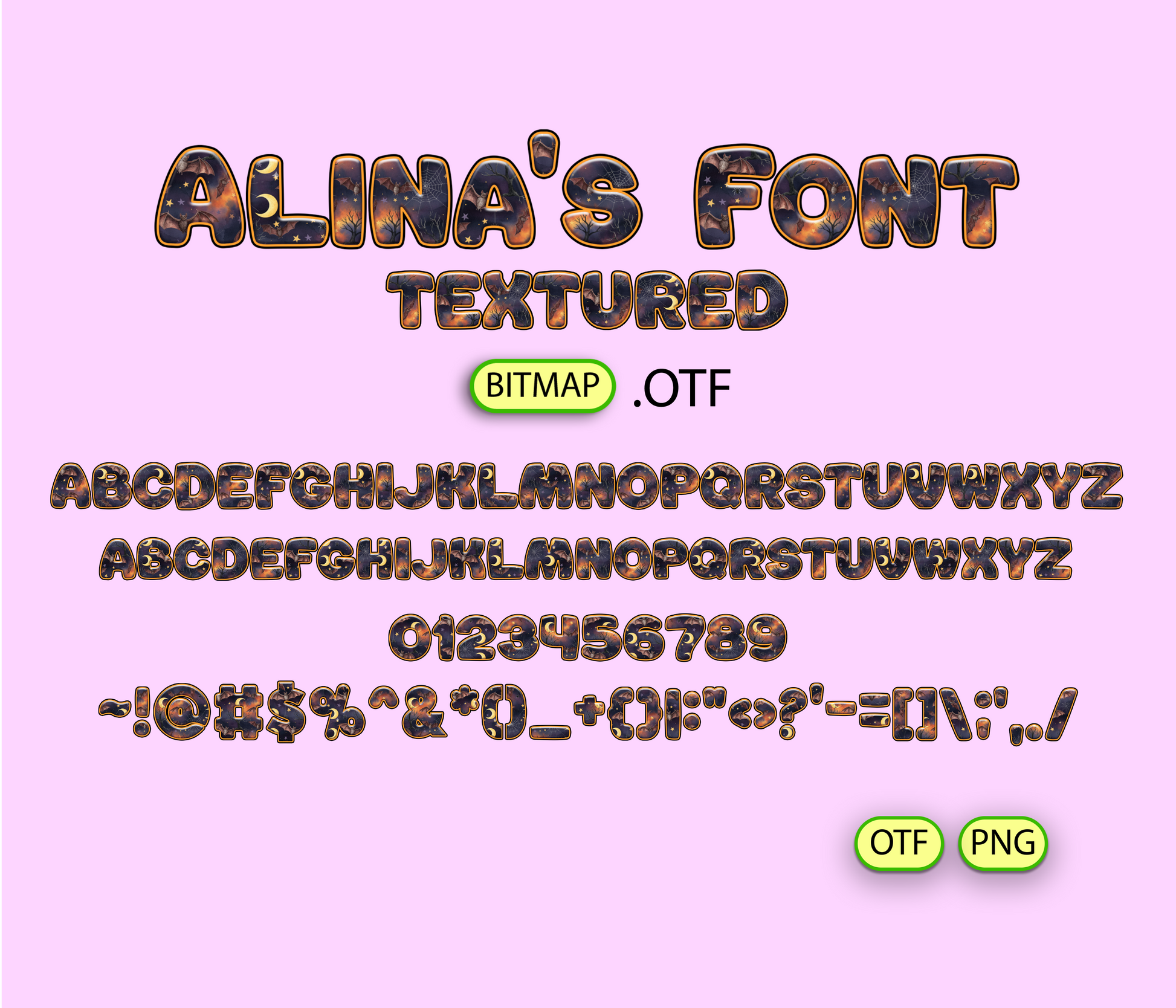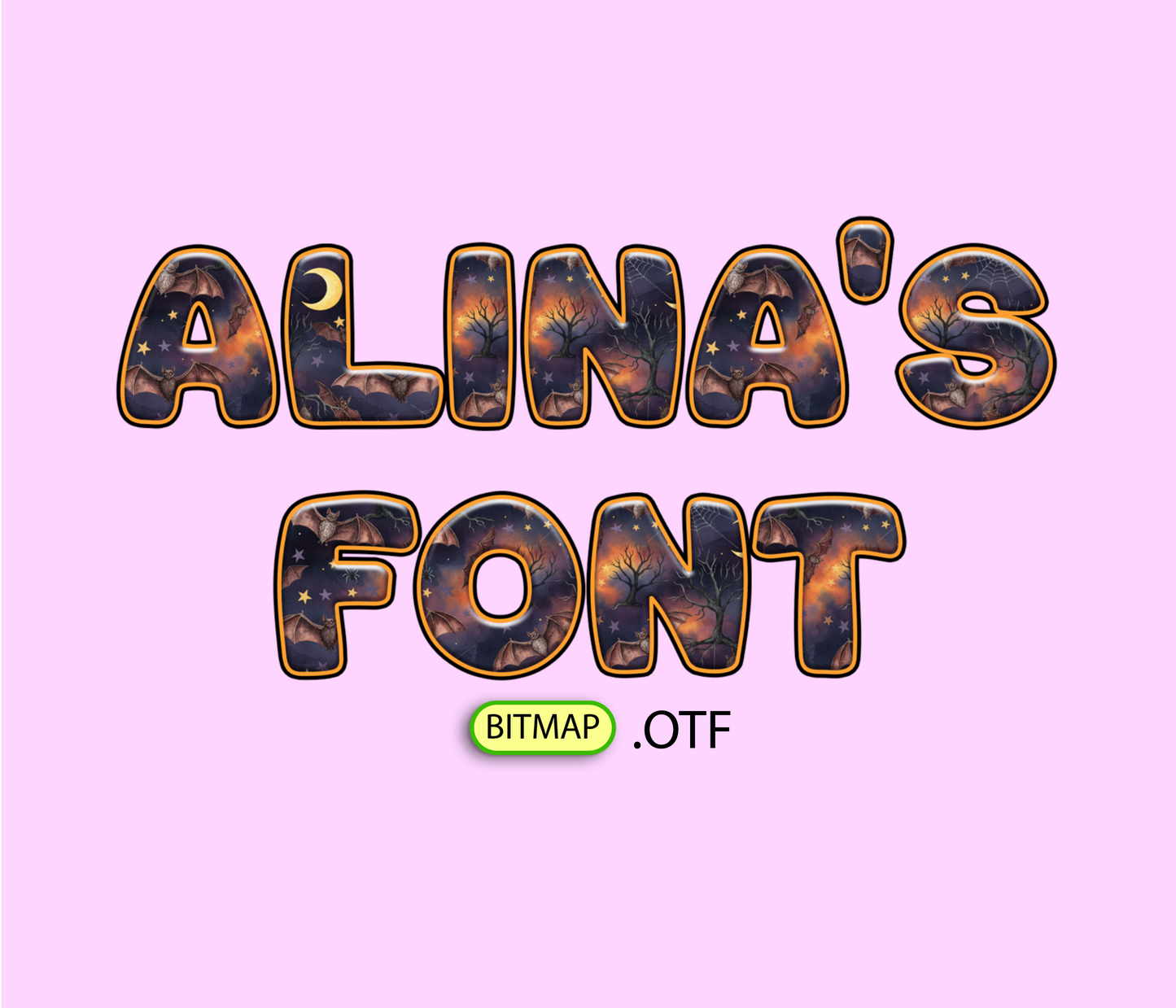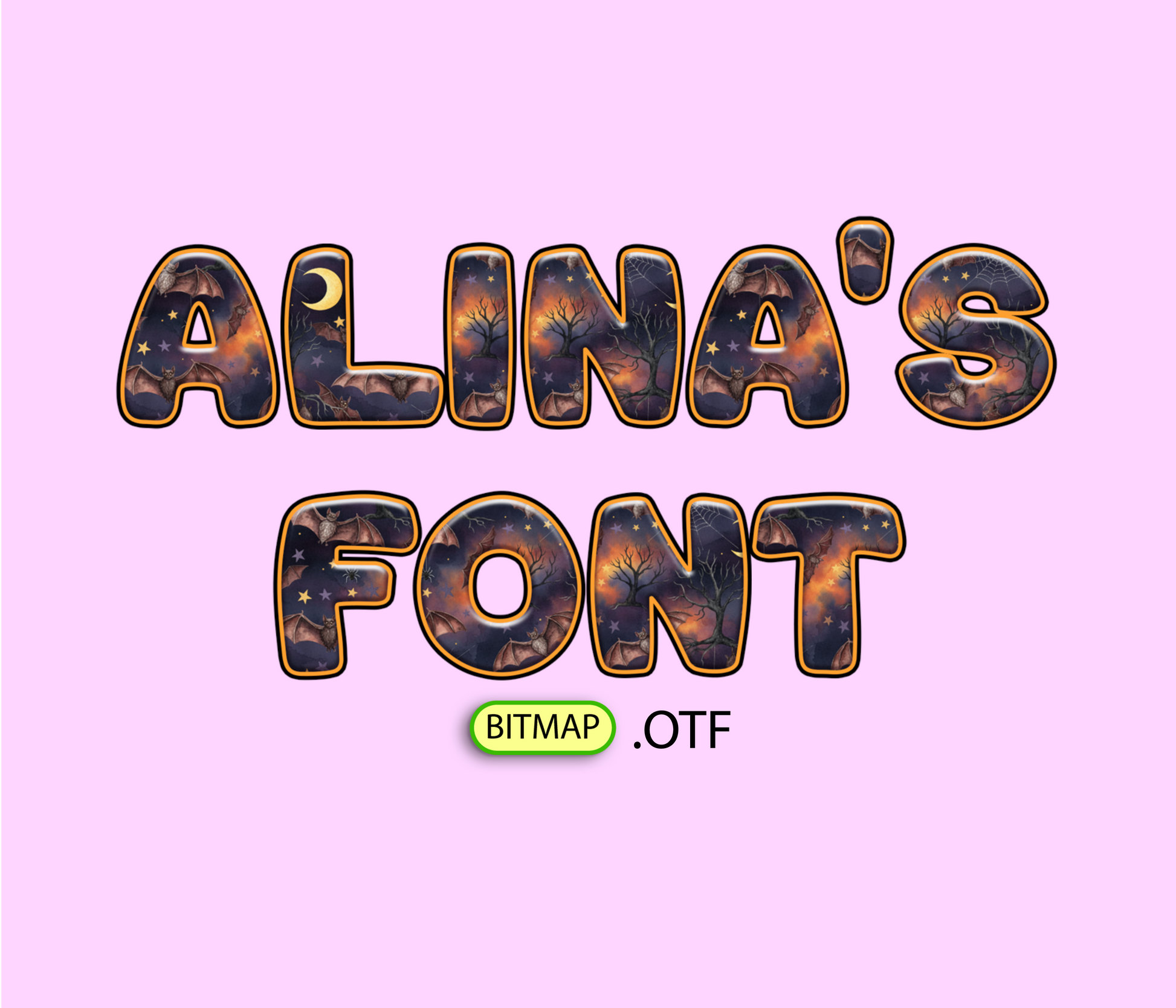
Sweet Spooky Spirits Pattern Font
Step into the whimsical world of adorable haunted dreams with our Sweet Spooky Spirits font, capturing the essence of friendly phantoms and cozy frights. Perfect for Halloween fans, party planners, event organizers, and designers, this font brings the charming, playful spirit of gentle specters to your projects. Create delightful materials, merchandise, or digital content with the heartwarming energy of cheerful apparitions.
Our Sweet Spooky Spirits font features soft, playful lines and adorable characters reflecting the world of friendly haunts. Ideal for:
- Event Promotions: Create inviting invites, posters, and banners for Halloween parties, autumn festivals, and themed celebrations that capture the spirit of lovable ghosts
- Merchandise Design: Perfect for t-shirts, posters, and accessories that showcase the cozy aesthetic of charming phantoms and delightful frights
- Digital Media: Enhance websites, blogs, and social media with whimsical headers and graphics that express the joy of gentle specters
- Seasonal Content: Add authentic flair to craft projects, party designs, and creative works inspired by friendly haunted tales
- Personal Projects: Bring cheerful excitement to scrapbooking, DIY crafts, and home decor inspired by the world of adorable apparitions
Our font pays tribute to the charming world of friendly ghosts, empowering your designs with its cozy and playful spirit. Whether crafting promotional materials, designing merchandise, or adding a delightful touch to personal projects, this font communicates the heartwarming essence of adorable hauntings. Ready to inject sweet spooky magic into your creations? This font is your key to exciting, impactful design.